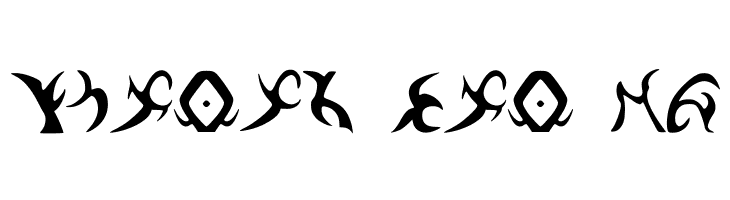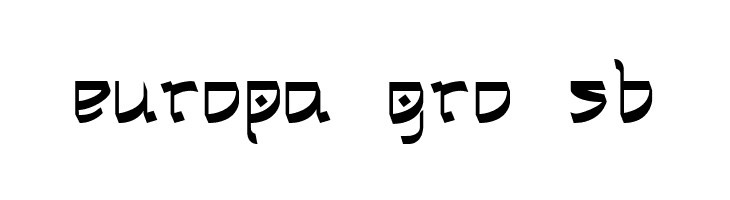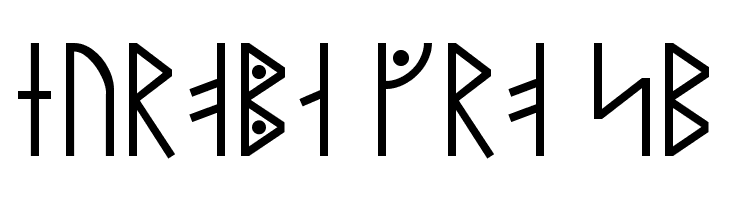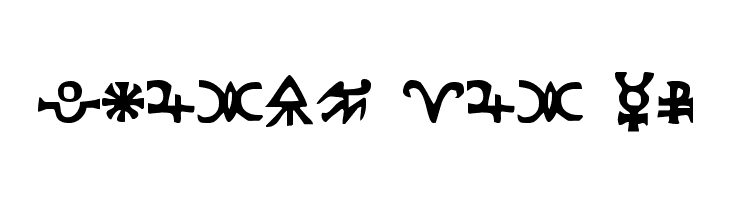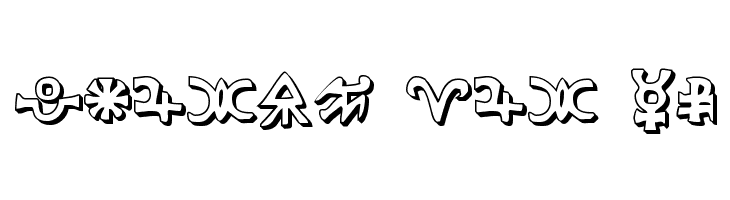
• SpoookyDrips-Regular
( Daniel Bent - www.danielbent.com/ )
A spooky, dripping font with an eerie, playful design.
• Drenn_s_Runes
( Fallkhar - Leon Dzojic - www.creativefabrica.com/designer/fallkhar/ )
A mystical, rune-like font with bold strokes and high contrast.
• Fallkhar_Runes
( Fallkhar - Leon Dzojic - www.creativefabrica.com/designer/fallkhar/ )
Intricate, cryptic symbols resembling ancient runes.
• Ryja
( Filippo Morara - be.net/filippomorara )
An angular, bold, and decorative font with a mysterious, ancient script vibe.
• Modern Runic
( Gröt Havregrynsson - hvitumavar.tumblr.com/ )
A modern, geometric font inspired by ancient runic symbols with a minimalist design.
• Zwerge
( Haldir - Joshua Eberli )
A bold, runic font with an ancient, mystical style.
• Eva Fangoria 3D
A bold, 3D horror-themed font with jagged, dripping characters.
• Hermetic Spellbook
A decorative font of mystical symbols resembling ancient runes.
• Hermetic Spellbook 3D
A mystical font with bold, intricate symbols and a 3D effect.
• Vtks Morphetics 2